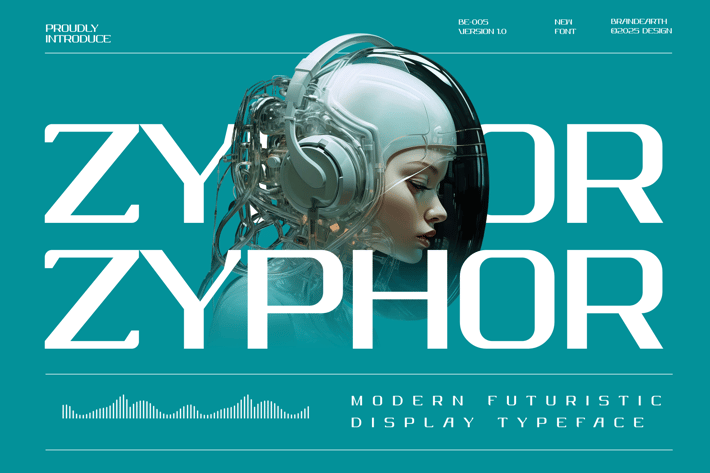
Zyphor Futuristic Font
BrandEarth
Zyphor is a bold, modern futuristic display font designed for high-impact visual storytelling. With its angular cuts, techno-styled terminals, and aerodynamic flow, Zyphor captures the essence of advanced technology and sci-fi aesthetics. Its sleek and commanding presence makes it perfect for headlines, tech branding, artificial intelligence projects, and modern digital interfaces. Inspired by cyberpunk, robotics, and space-age design, Zyphor is a powerful typeface for projects that demand a visionary and cutting-edge appearance.
Relevance and Use Cases Zyphor is ideal for technology fonts, modern futuristic themes, and professional font applications in digital and high-tech environments. Perfect for sci-fi posters, space-themed visuals, robotics interfaces, gaming dashboards, and AI-driven UI/UX design.